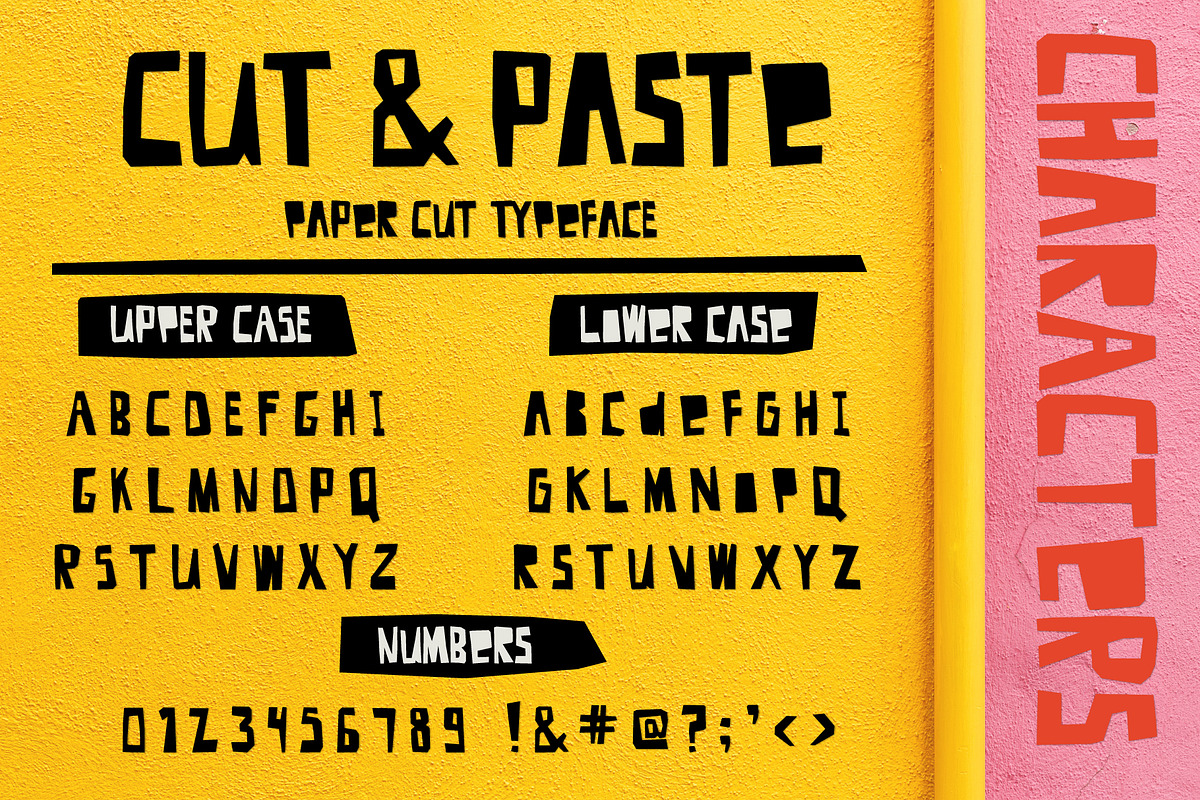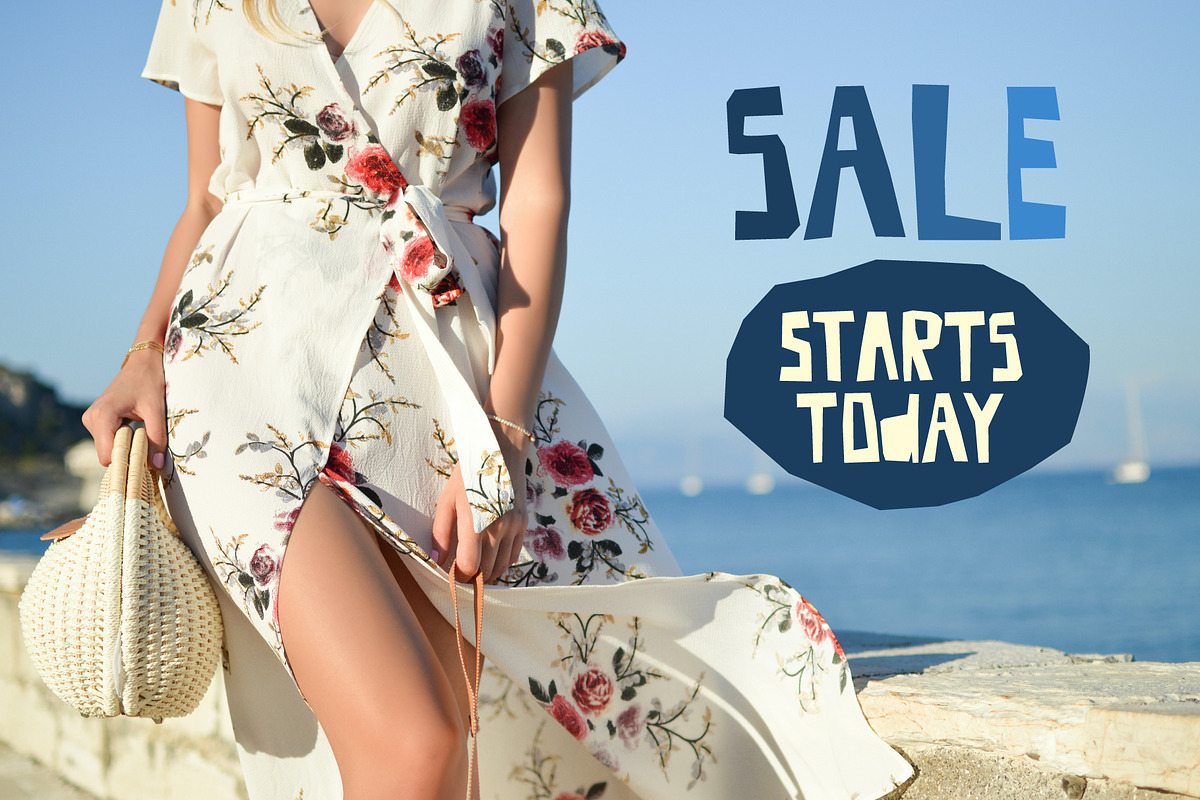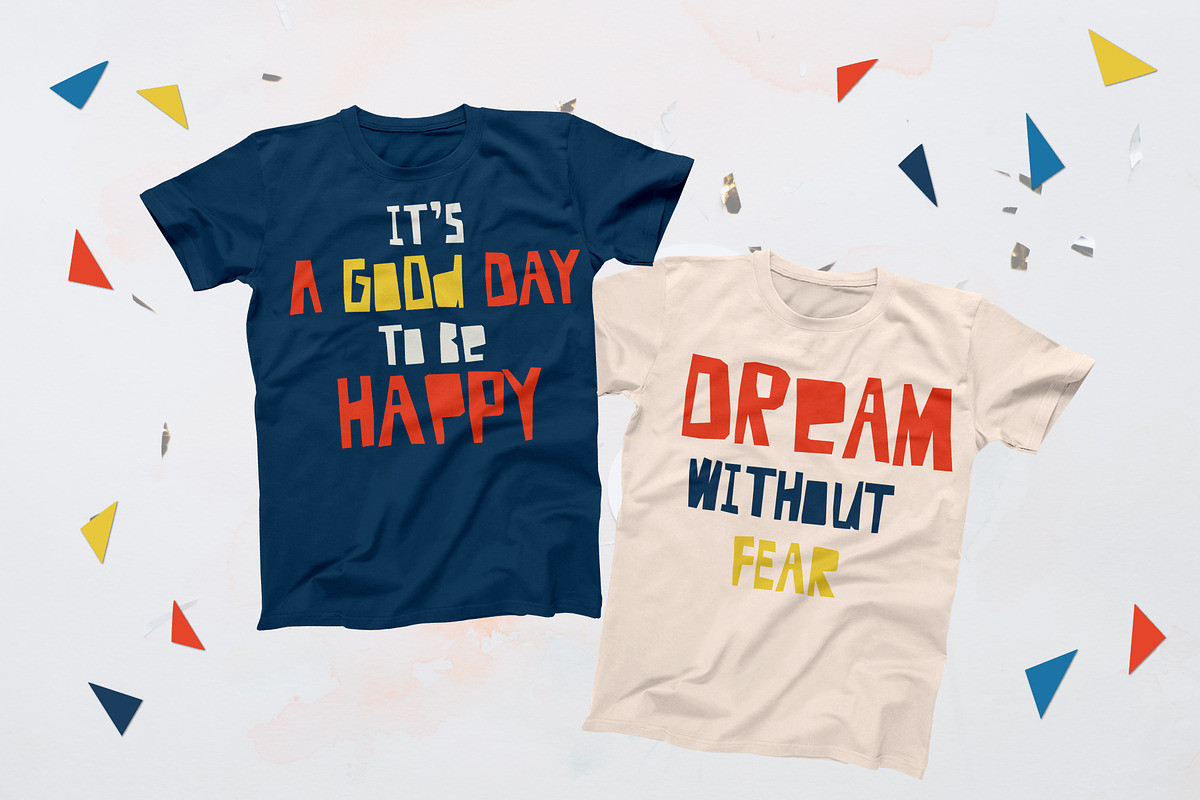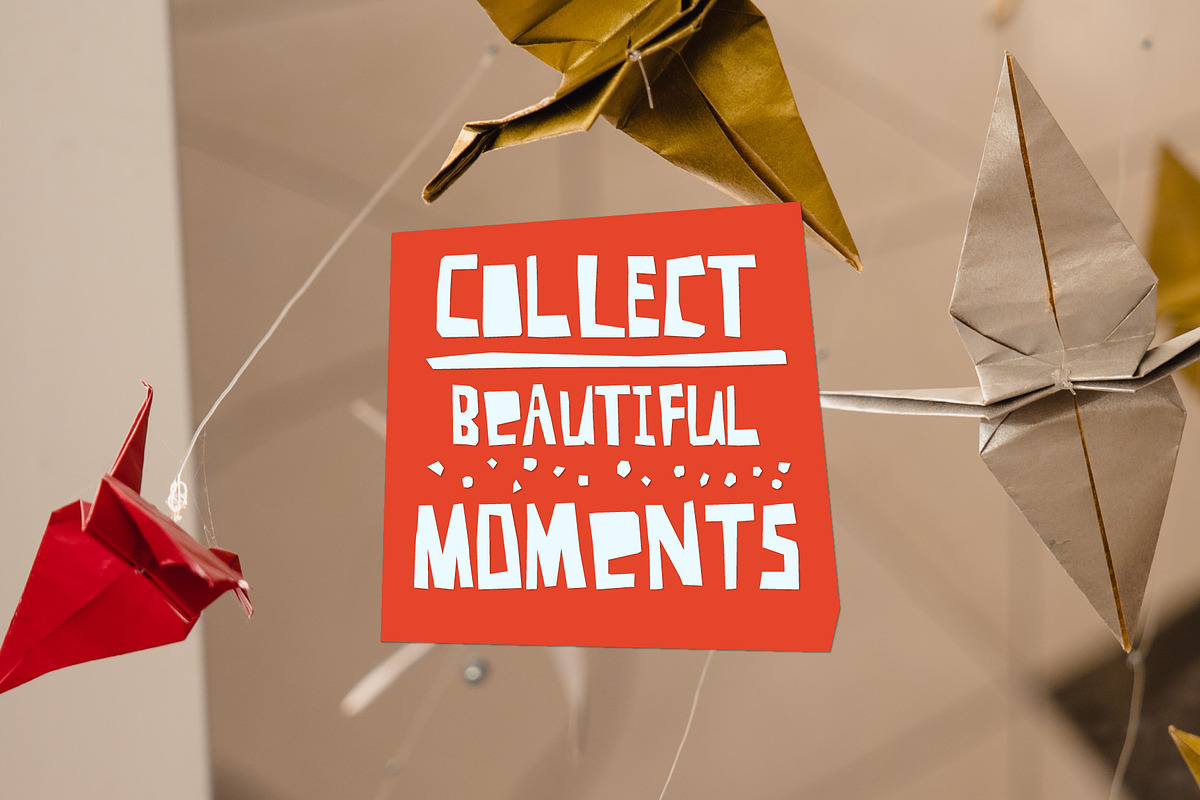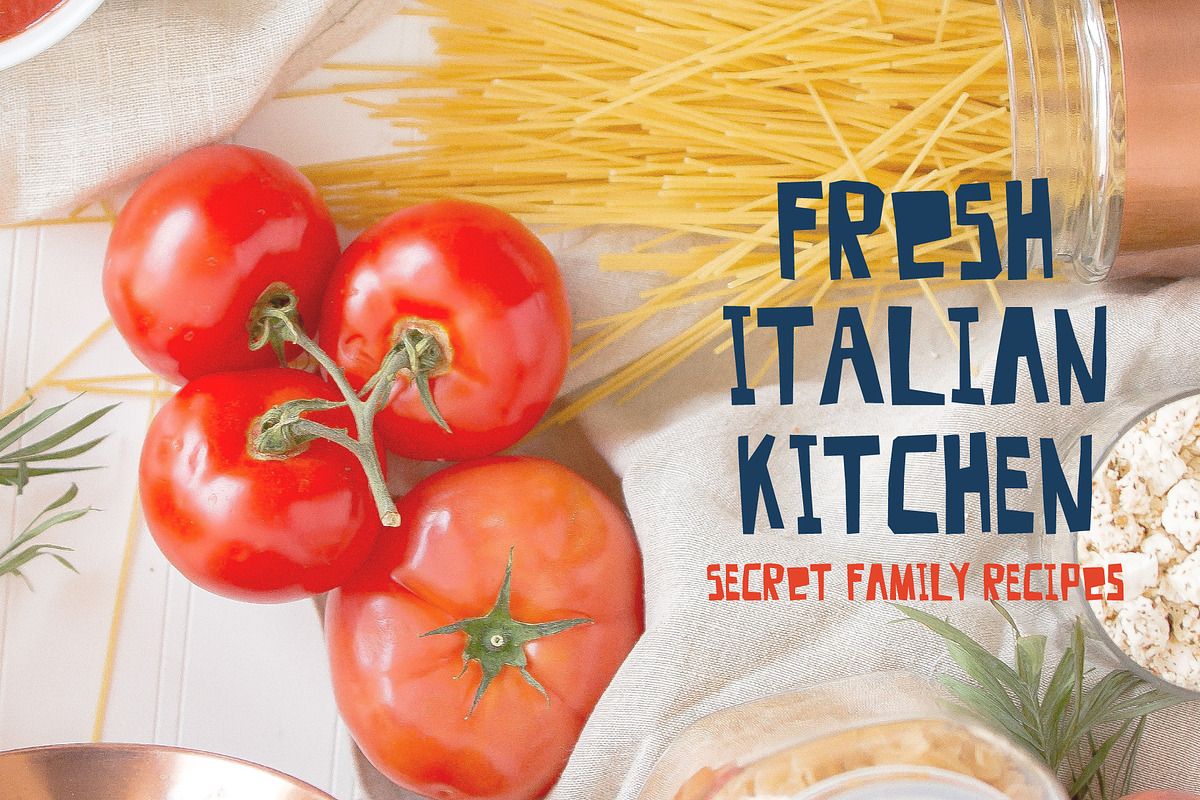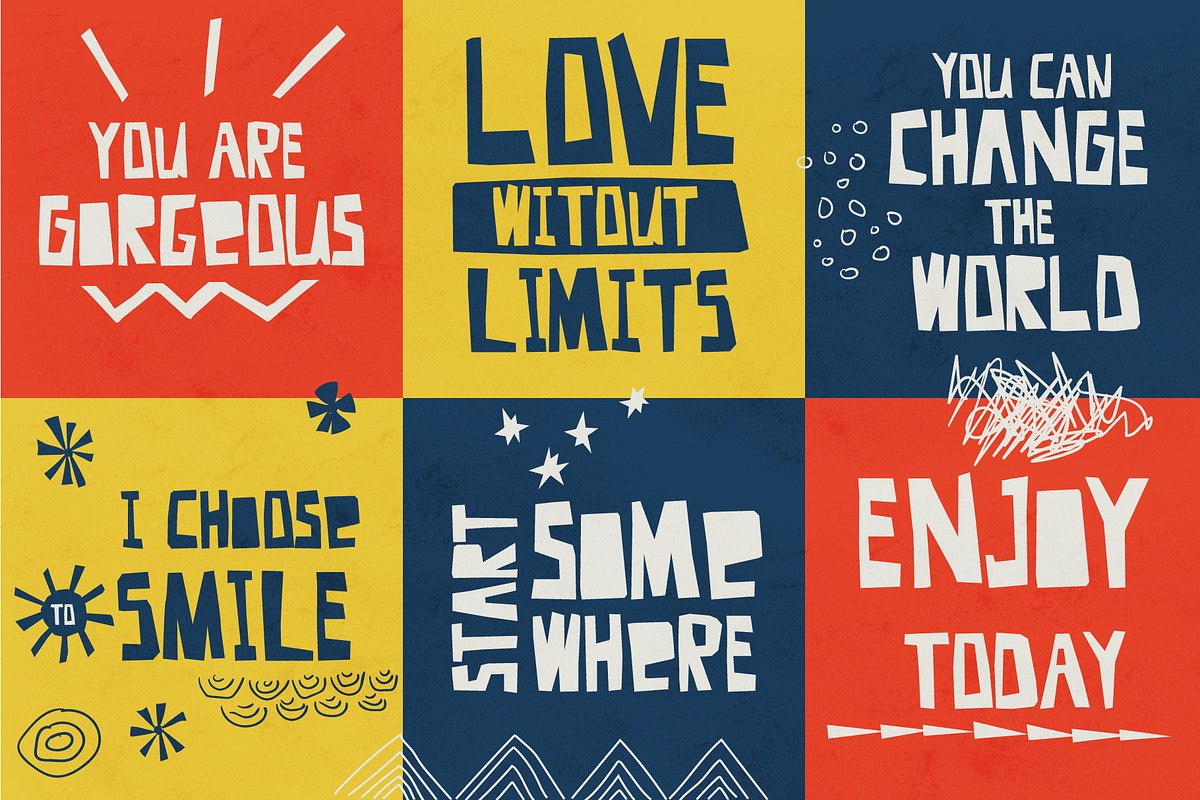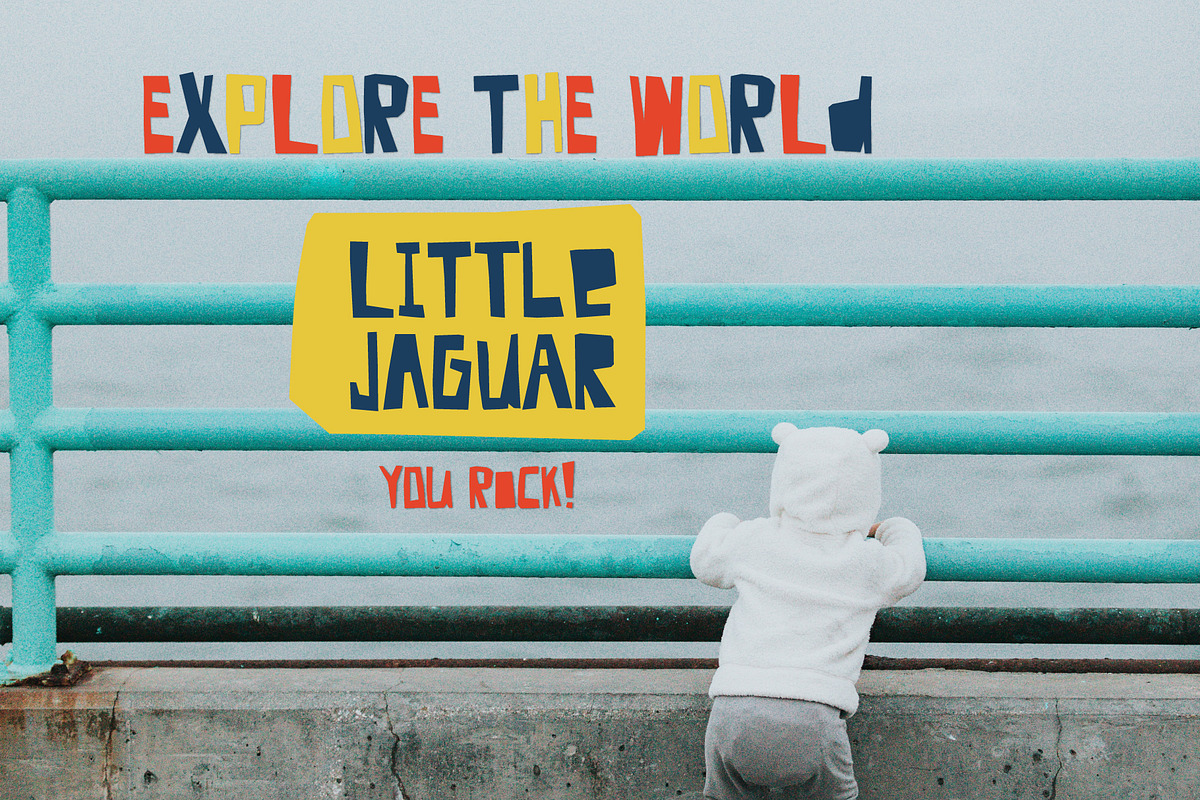
Cut And Paste - Paper Cut Font
Introducing CutAndPaste font
Cut and Paste is a bold cut out by hand and refined font. It will bring a strong Personality to your design projects. It is perfect for posters, greeting cards, apparel design, book covers, personalized logos, product packaging and more.
Each letter is cut by hand and developed into an inventive font, preserving carefully the Imperfect aesthetic look.
Cut And Paste - Paper Cut Font by Anna Ivanir fits naturally into Branding, posters, packaging, typography.